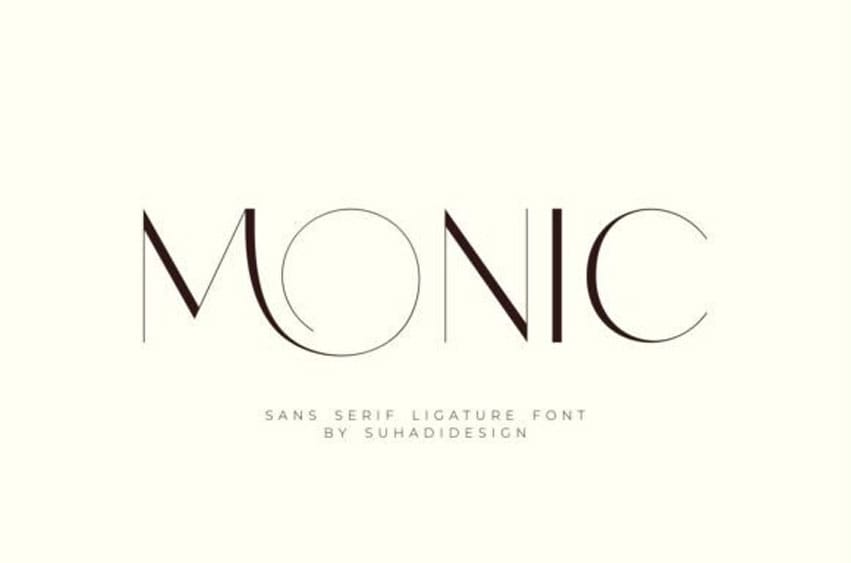
Monic Font is a refined sans serif ligature font that exudes minimalist elegance and modern sophistication. Carefully crafted with artistic finesse, Monic stands out through its high-contrast strokes, clean lines, and uniquely stylized ligatures that transform basic typography into striking visual statements.
The fusion of select characters creates beautifully balanced, flowing forms perfect for elegant branding.
Minimalist Design – Thin and bold lines contrast harmoniously to give it a sleek, high-fashion aesthetic.
High Legibility – Despite its artistic form, Monic maintains clarity across a variety of applications.
Monic is not just a font—it’s a visual identity tool. Whether you’re creating a modern brand or designing editorial content, its distinctive form will leave a lasting impression. Perfect for creators seeking a clean yet expressive typeface with a modern edge.